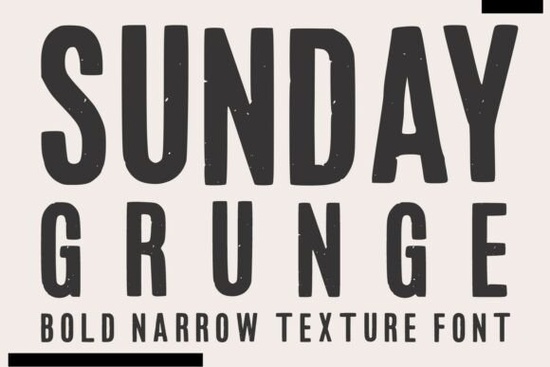
If you're working on a retro poster, vintage branding, or a bold t-shirt design, Sunday Grunge is a textured display font worth checking out. It has a narrow, condensed shape with a distressed, worn-in look that feels like it came straight out of an old print shop. This font works especially well for designers, print-on-demand sellers, and anyone building projects with a classic, rugged vibe.
Fonts like this one solve a common problem: you want your text to look authentic and aged without spending hours adding effects or overlays. The grunge texture is already built into every letter, so you can drop it into your design and get that rough, vintage feel right away.
What Makes This Font Stand Out?
Sunday Grunge isn't your typical clean, modern typeface. It's a bold display font with tall, narrow letterforms and a naturally distressed surface. Each character carries a rough, textured edge that mimics the look of old screen prints or worn ink stamps.
Here's what defines its style:
- Narrow and condensed great for fitting long words into tight spaces
- Heavy weight commands attention in headlines and large text
- Built-in grunge texture no extra effects needed
- Vintage character fits naturally into retro and old-school projects
If you've ever used a clean Hotrod Font for bold display work, you'll notice Sunday Grunge takes that same commanding presence and adds a layer of distressed personality to it.
What Can You Use It For?
This font fits a wide range of creative projects. Because of its bold texture and vintage feel, it works best in situations where you want the text itself to be the focal point.
- Posters and flyers especially for events, music, or food brands with a rustic theme
- T-shirt designs grunge fonts are a staple in print-on-demand for a reason
- Branding and logos great for businesses that want a rugged, handcrafted identity
- Packaging works well on labels for craft products, coffee, or artisan goods
- Social media graphics bold, textured type grabs attention in crowded feeds
- Vintage themed invitations think retro parties, rustic weddings, or themed events
Compared to something like Fast Rogue Font, which leans more toward a fast-paced, energetic display style, Sunday Grunge slows things down and gives off a more worn, timeless energy. Both are strong choices for headline work, but they serve different moods.
Why Condensed Display Fonts Work So Well
There's a reason condensed fonts are everywhere in poster design and branding. Their tall, narrow letterforms let you fit more text into a smaller area while keeping everything readable. When you combine that with a heavy weight and grunge texture, you get type that practically jumps off the surface.
Sunday Grunge takes that condensed structure and pairs it with a distressed vintage aesthetic. The result is a font that feels both structured and raw organized enough for professional layouts, but rough enough to feel handmade.
Designers who also appreciate textured crafts fonts like The Crafty Marie Font will notice that Sunday Grunge occupies a different lane less whimsical, more industrial. But both share that quality of adding visual interest without extra design work.
Pairing Ideas for Better Layouts
A bold grunge display font like this one works best when paired with simpler type for body text. Here are a few pairing approaches that work well:
- Sunday Grunge + clean sans-serif use the grunge font for headlines and a simple sans-serif for descriptions or details
- Sunday Grunge + monospace creates a cool contrast between rough vintage and technical modern
- Sunday Grunge + handwritten script adds a personal, artisan touch to the overall design
If your project leans more toward pixel or retro gaming aesthetics, a font like Pixel Zone Font might be a better starting point. But for classic vintage and industrial grunge, Sunday Grunge is hard to beat.
Is This Font Right for Your Project?
Ask yourself these questions:
- Does your design need a bold, eye-catching headline?
- Are you going for a retro, vintage, or industrial look?
- Do you want built-in texture without extra editing?
- Is your project a poster, t-shirt, logo, or packaging layout?
If you answered yes to most of these, Sunday Grunge is a solid fit. It's the kind of font that does the heavy lifting for you no filters, overlays, or distressing effects required. You can Sunday Grunge Font on Creative Fabrica to see the full character set and download it for your next project.